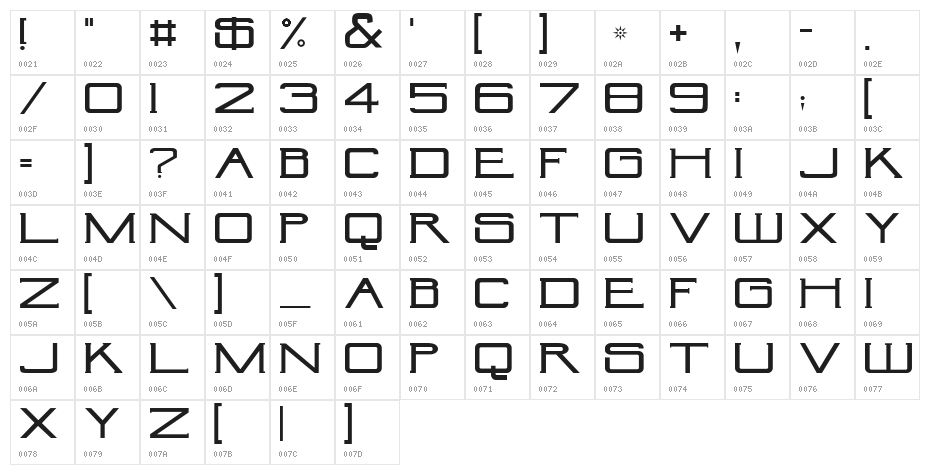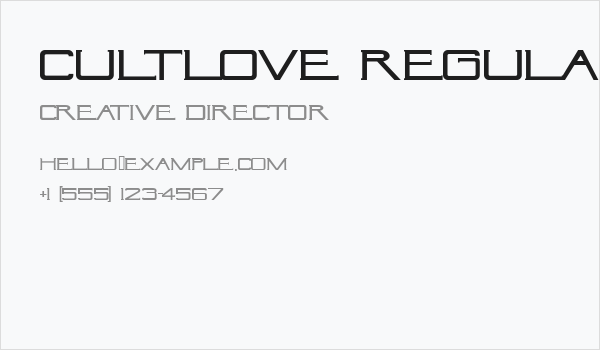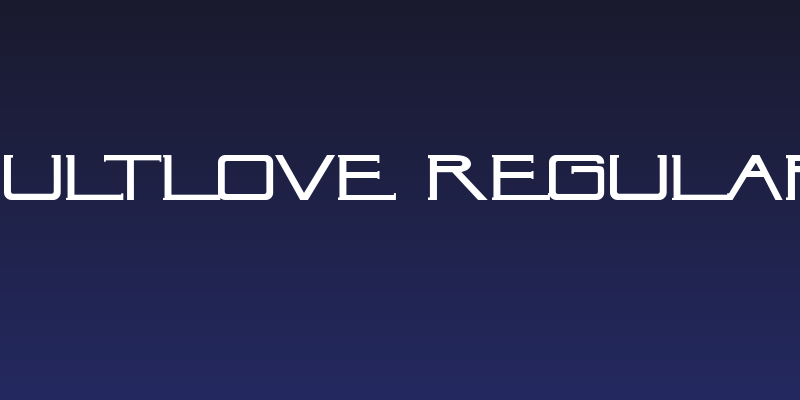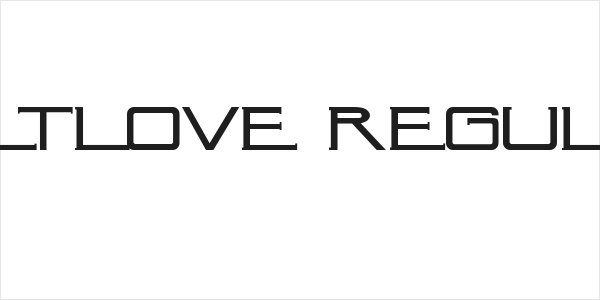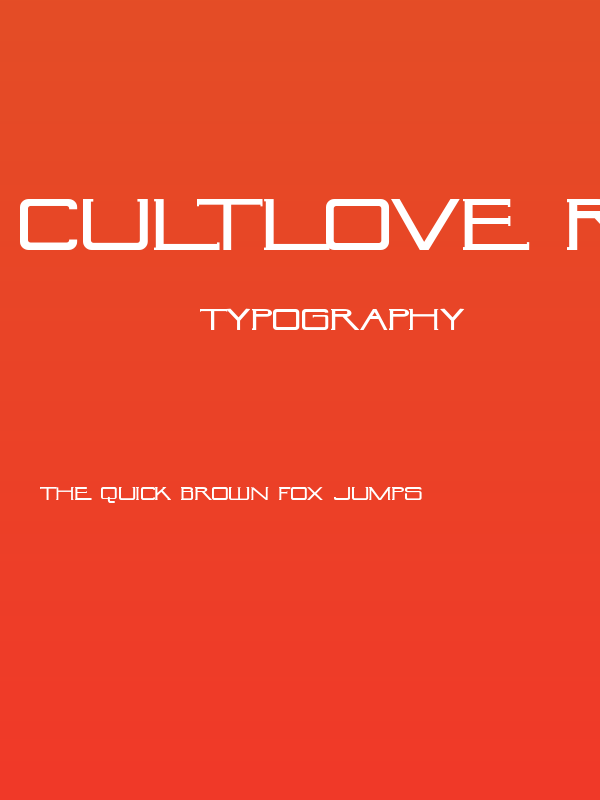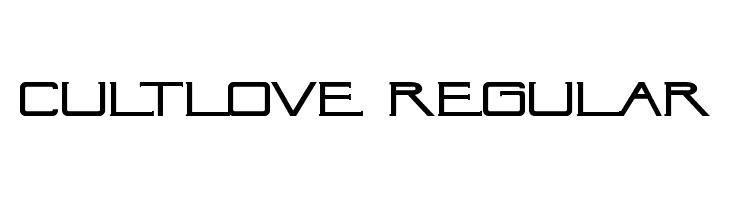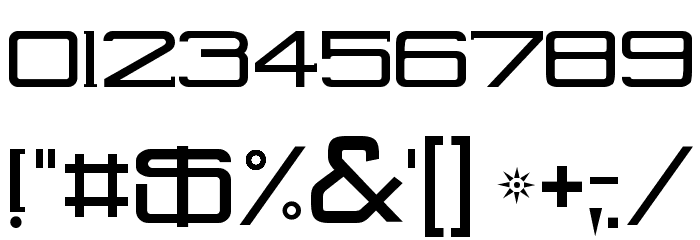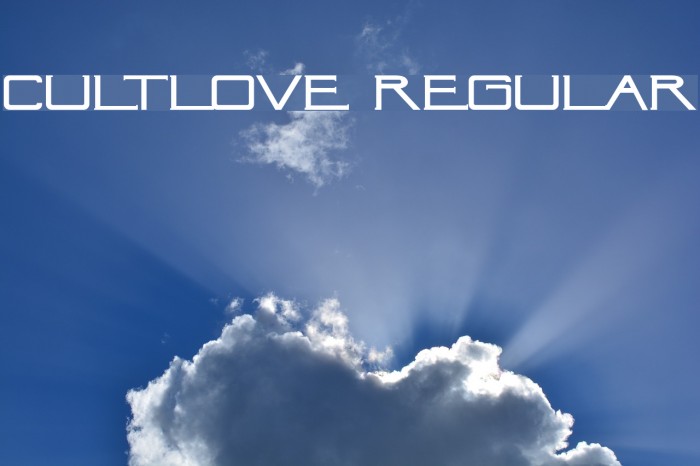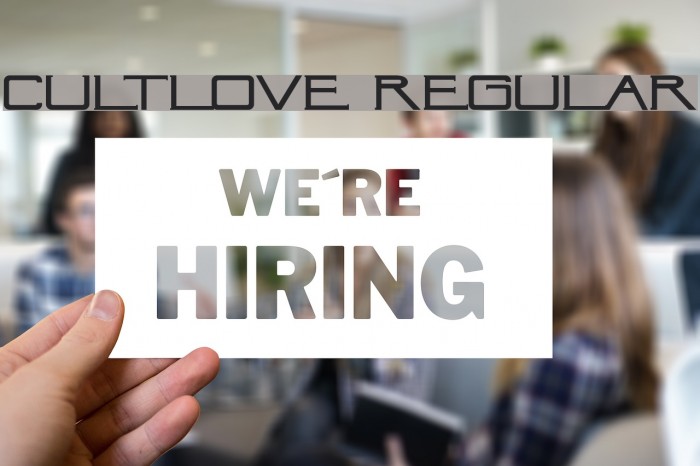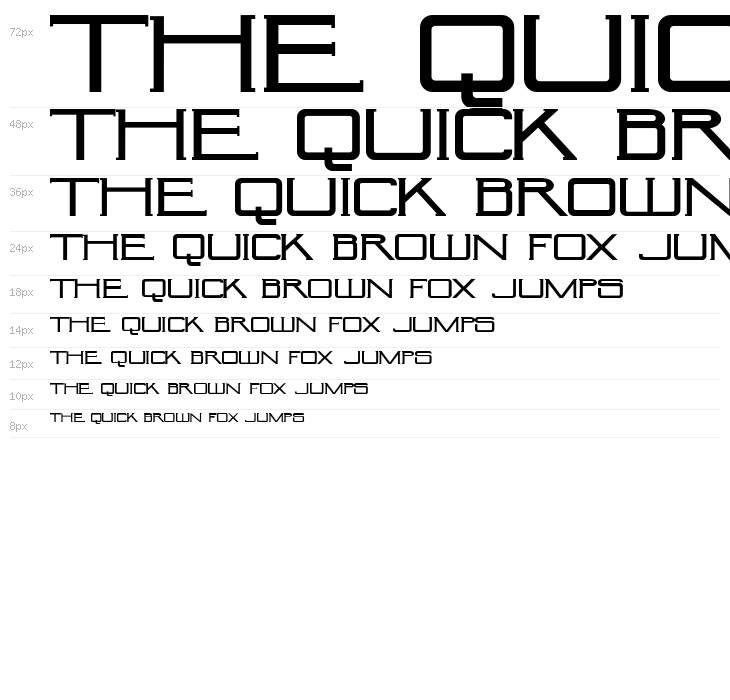
CultLove Regular Font
CultLove Regular Description
This font features a geometric and futuristic design, characterized by sharp angles and a structured appearance. The uppercase letters are bold and distinct, with a consistent height and width that gives a uniform look. The lowercase letters maintain the same angular style, providing a cohesive aesthetic throughout. Numbers and special characters are designed to match the overall theme, with a modern and slightly industrial feel. The font's unique style makes it stand out, suitable for projects that require a contemporary and edgy look.
| Proposed Projects | Ideal for technology branding, sci-fi posters, video game titles, and modern logos. |